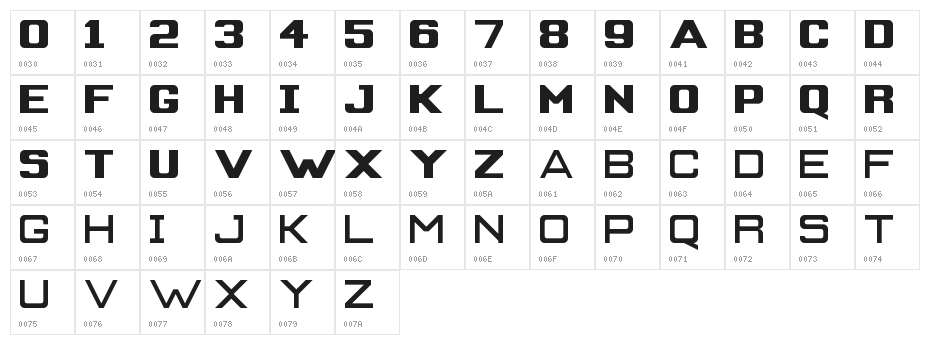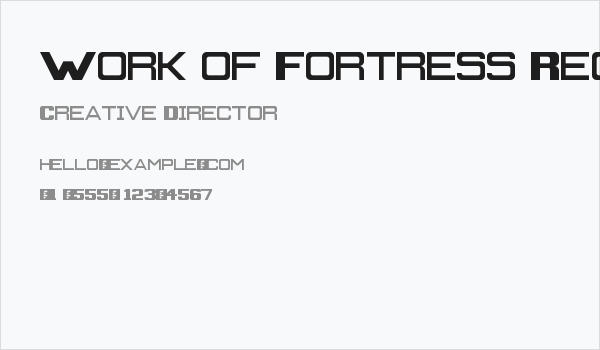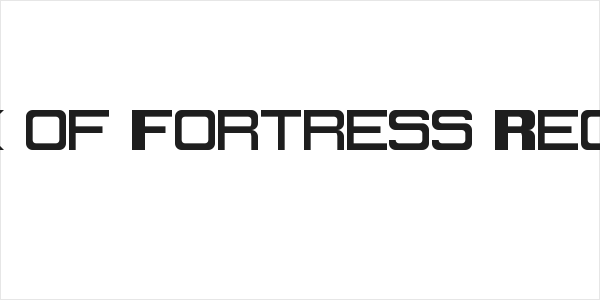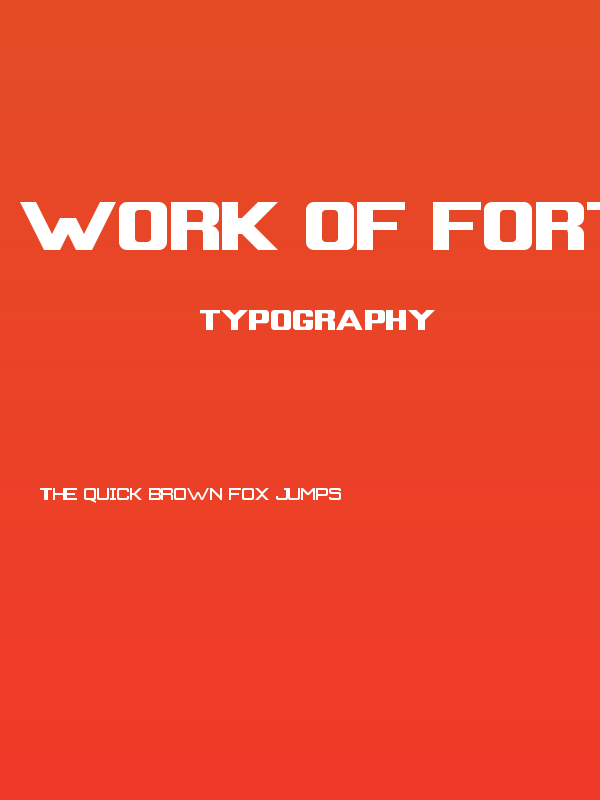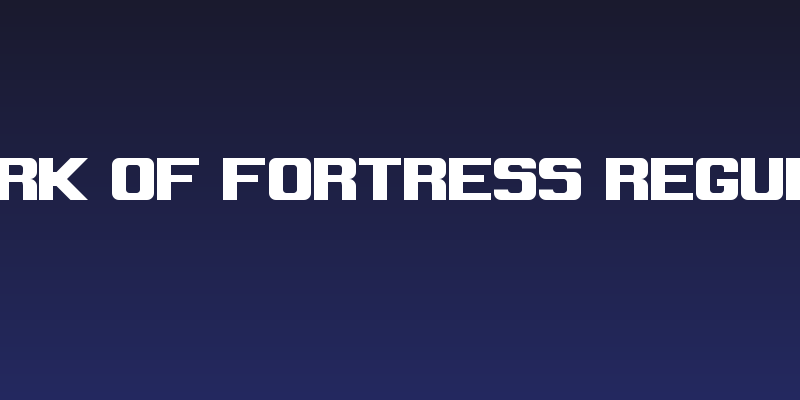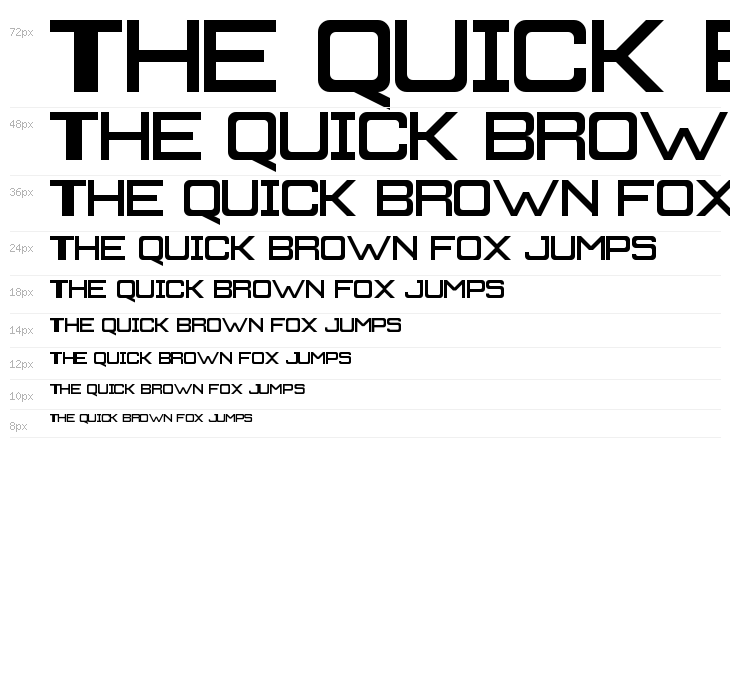
Work of Fortress Regular Font
Work of Fortress Regular Description
This font features a bold and robust design, characterized by its strong geometric shapes and solid structure. The uppercase letters are particularly striking, with a blocky appearance that conveys strength and stability. The lowercase letters maintain a consistent style, ensuring readability while retaining the font's distinctive character. The numerals are equally bold, matching the overall aesthetic of the font. Special characters are designed with the same attention to detail, making them suitable for various applications. This font is ideal for projects that require a commanding and authoritative presence.